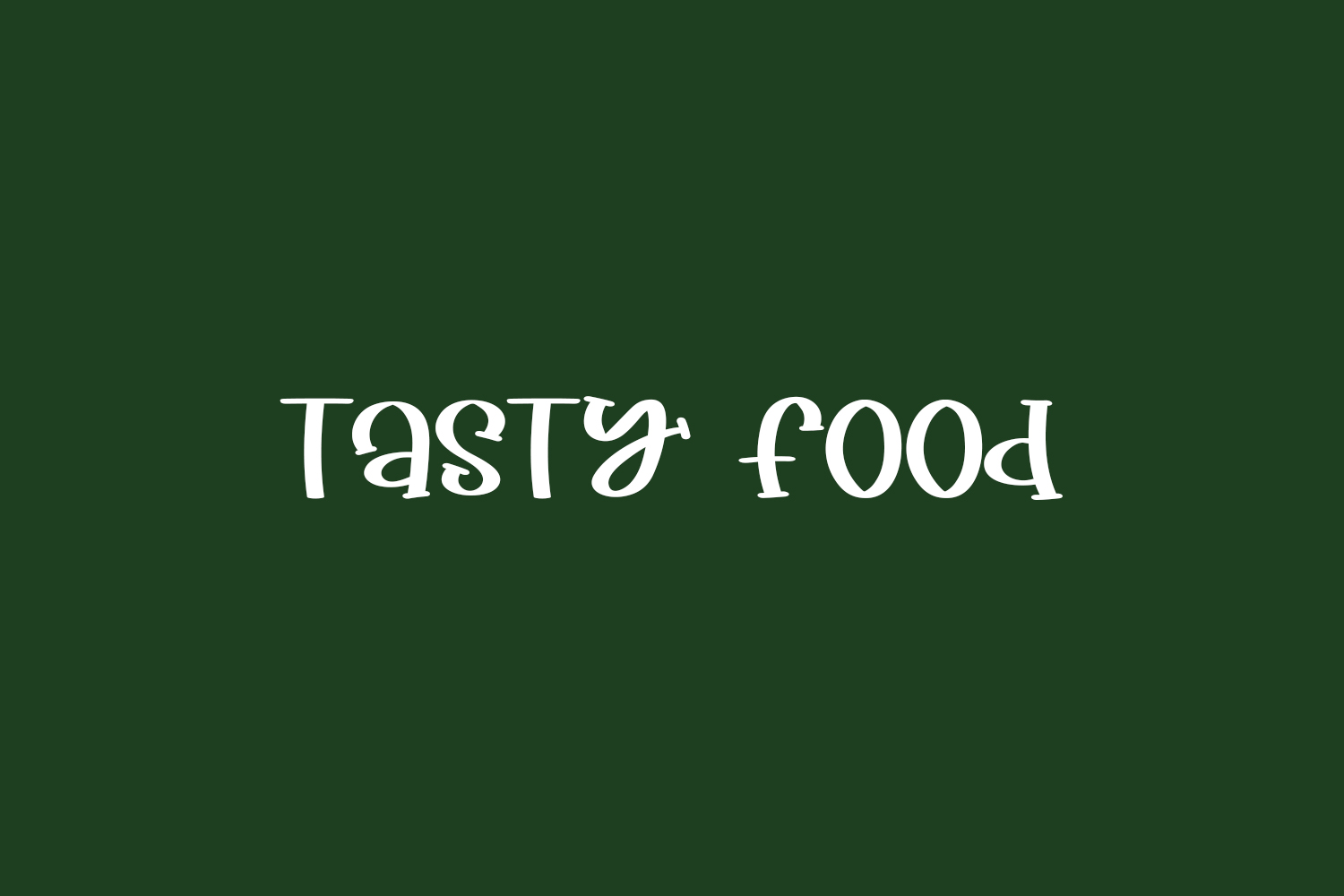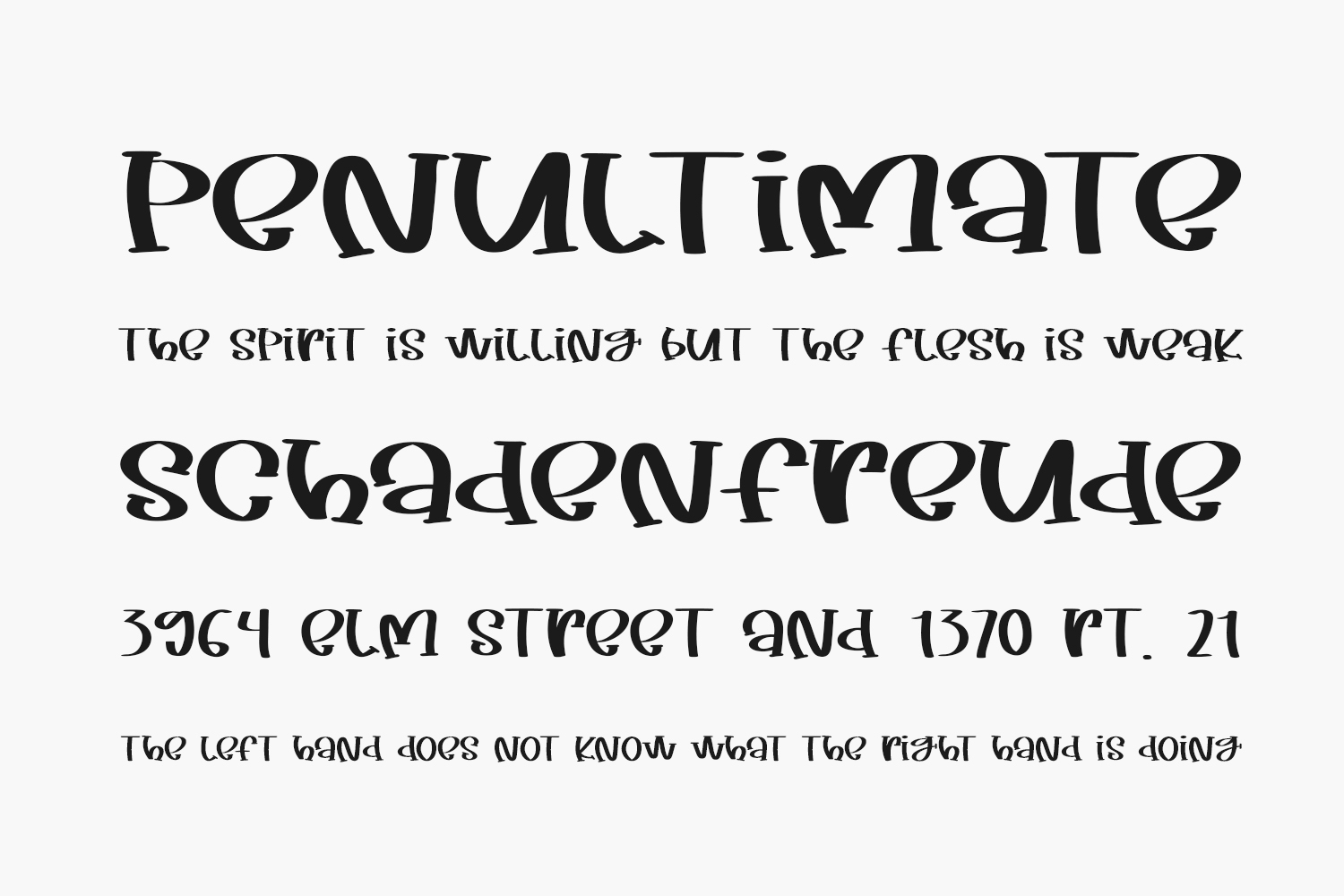
Tasty Food Free Font Family is an elegant typeface that has more the 90 different characters. This awesome typeface has been comprised of two styles: uppercase, lowercase, decorative glyphs, numbers, symbols, icons, and punctuations. This font style is mostly used in headlines, creating images, printing designs, visiting cards, and many more. Tasty Food Free Font Family was designed by Fontles and is free for personal use only. Please purchase the full version for commercial use.
Tasty Food Regular The quick brown fox jumps over the lazy dog
Tasty Food Bold The quick brown fox jumps over the lazy dog